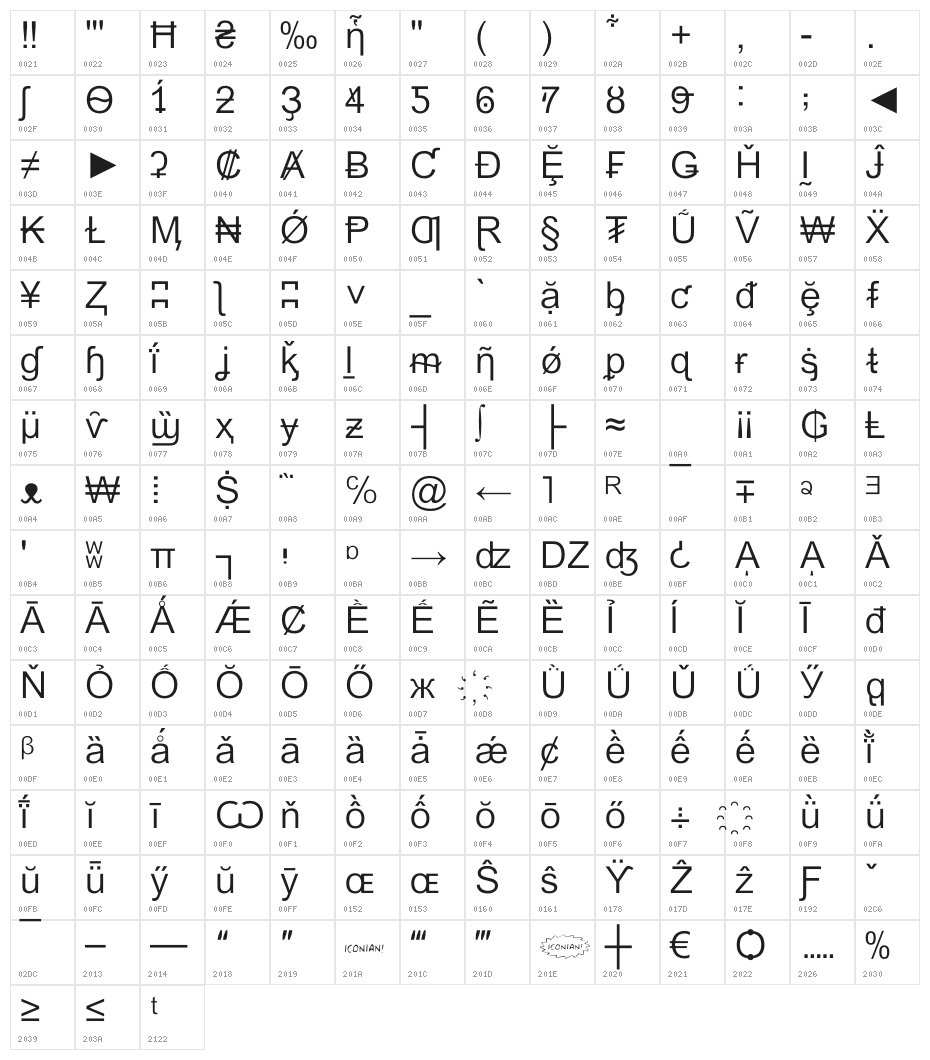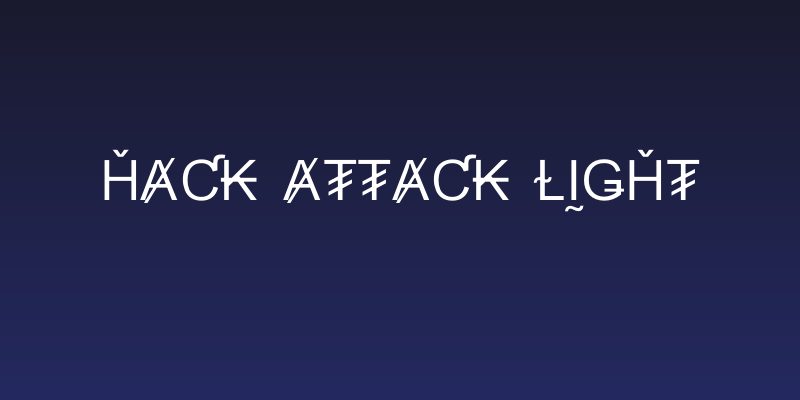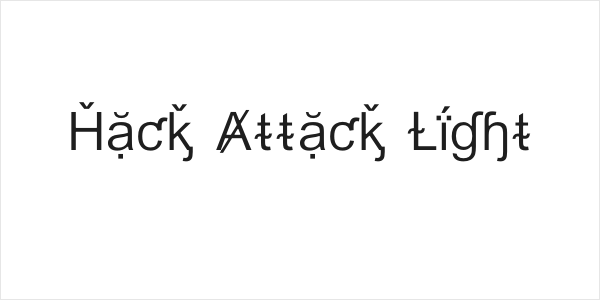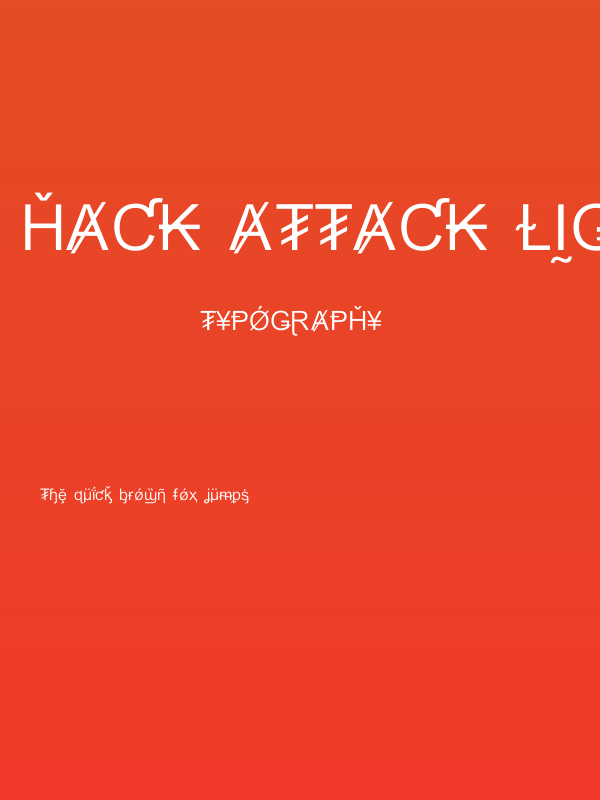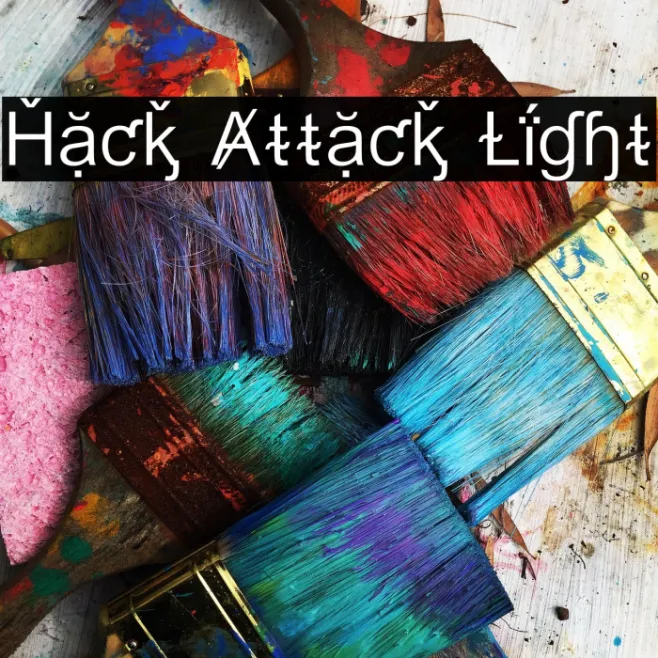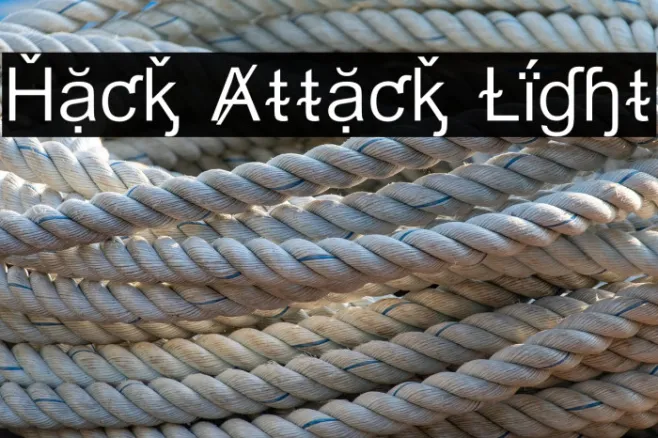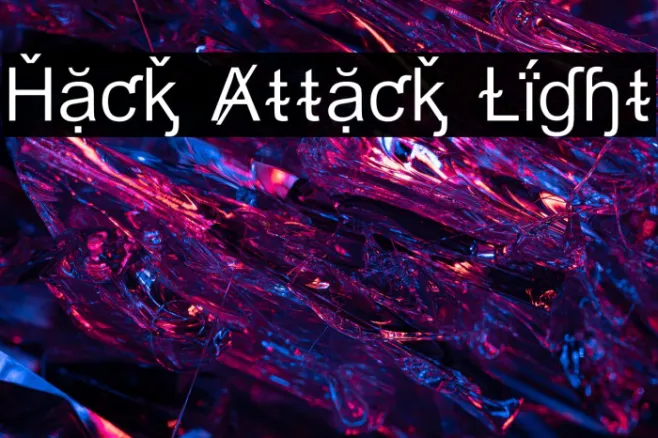
Hack Attack Light Font
Hack Attack Light Description
This font features a modern and clean sans-serif style with a geometric structure. The characters are uniform in width, providing a balanced and harmonious appearance. The font includes a wide range of accented characters, making it suitable for multilingual use. The numerals are distinct and easy to read, while the special characters are clearly defined. The overall look is sleek and professional, making it ideal for contemporary design projects.
| Proposed Projects | Ideal for branding, web design, advertising, and editorial projects where a modern and clean look is desired. |